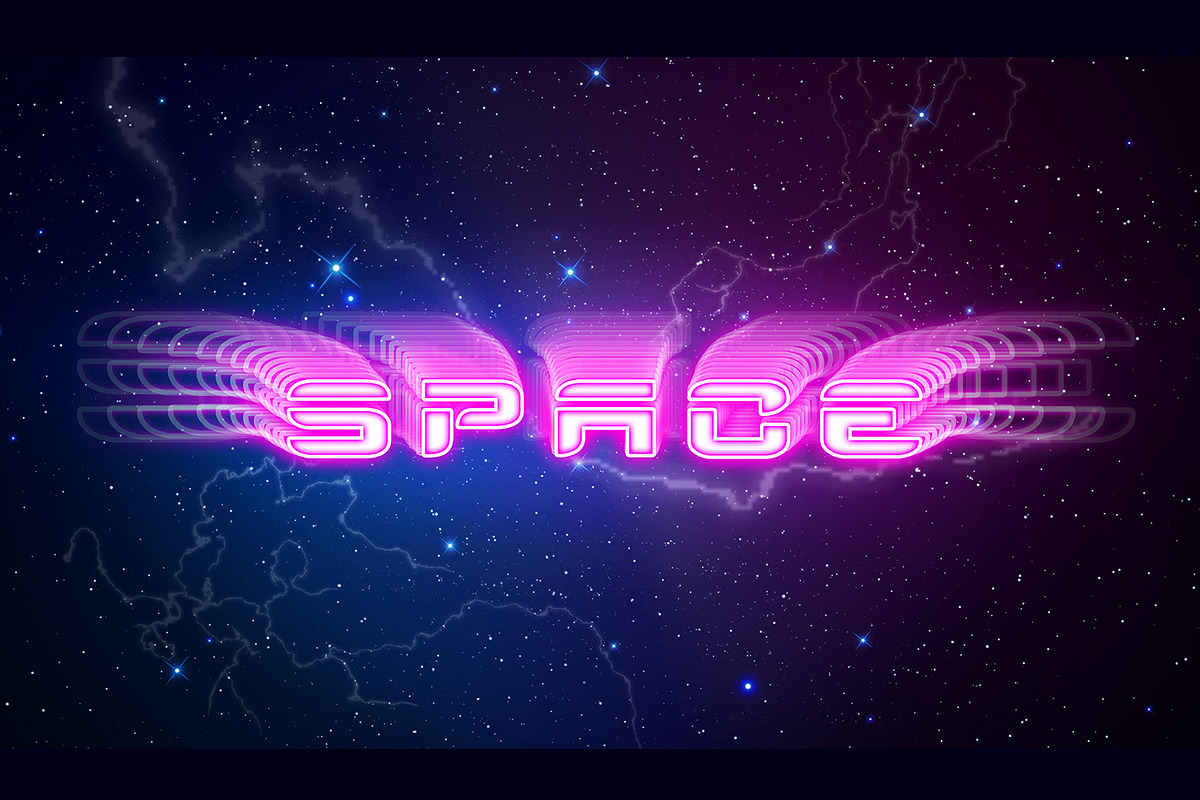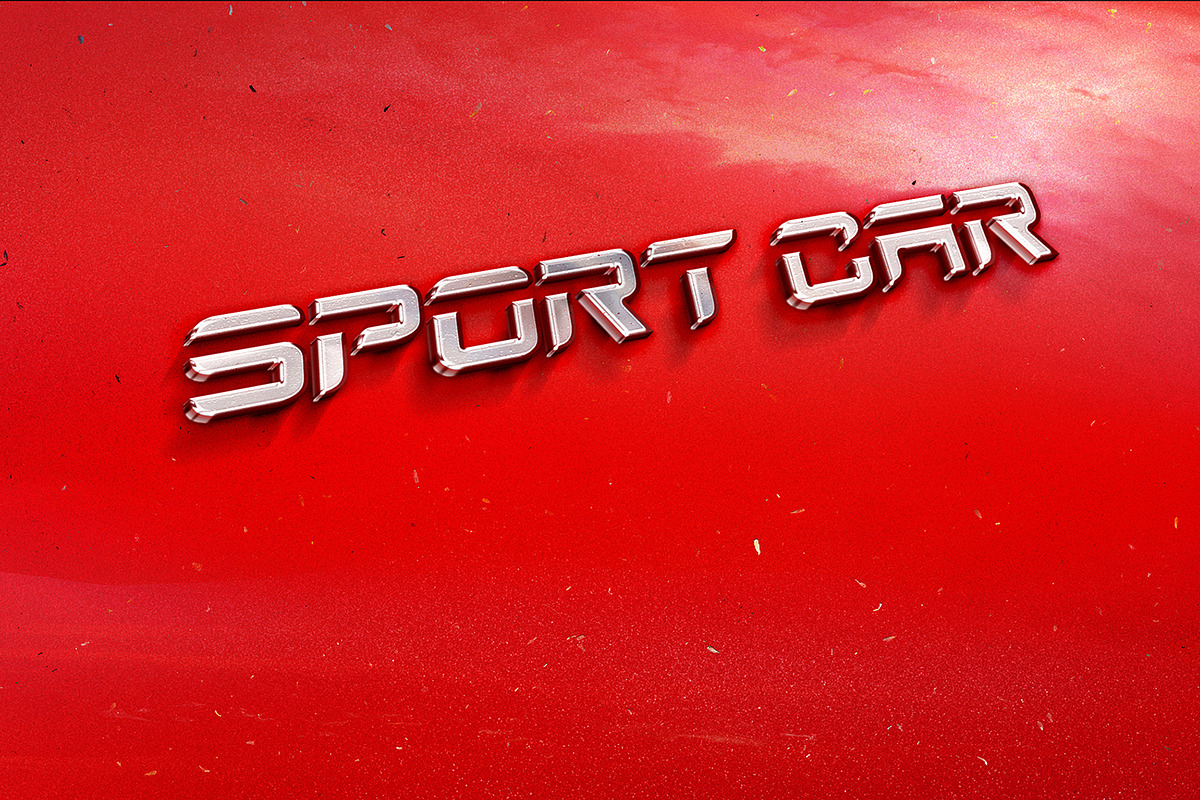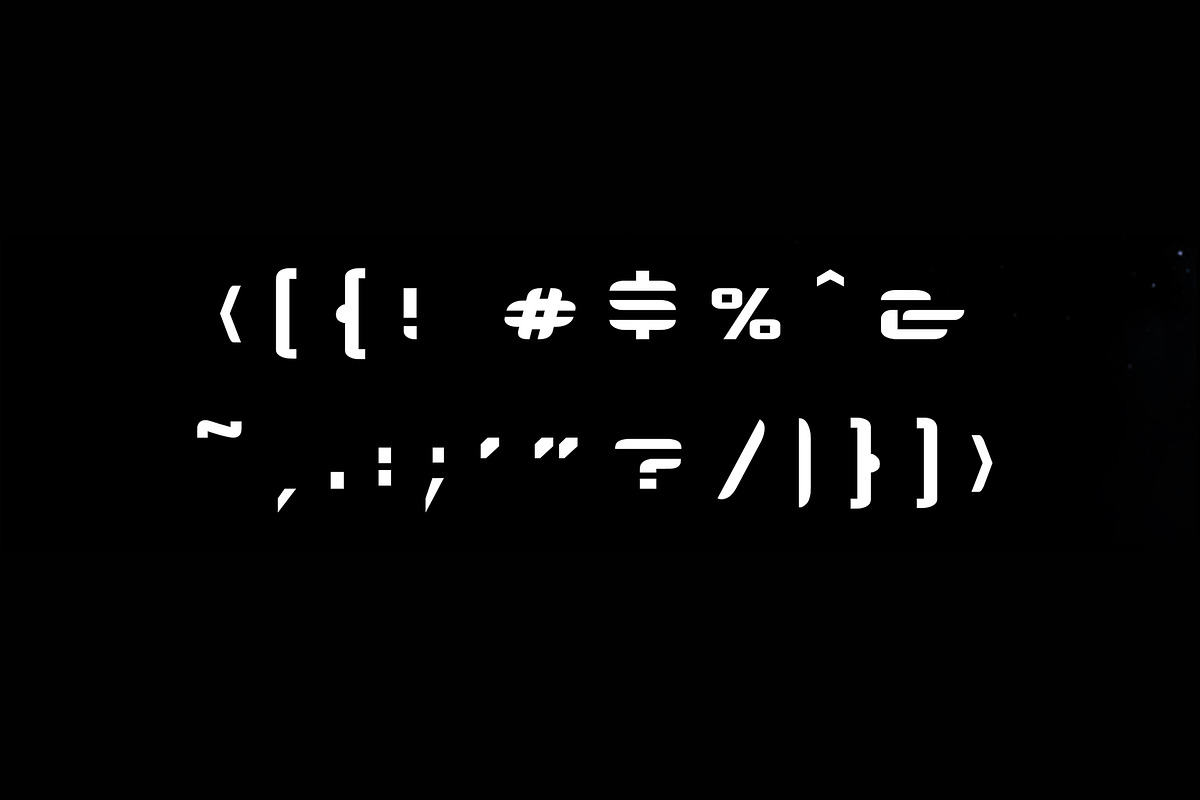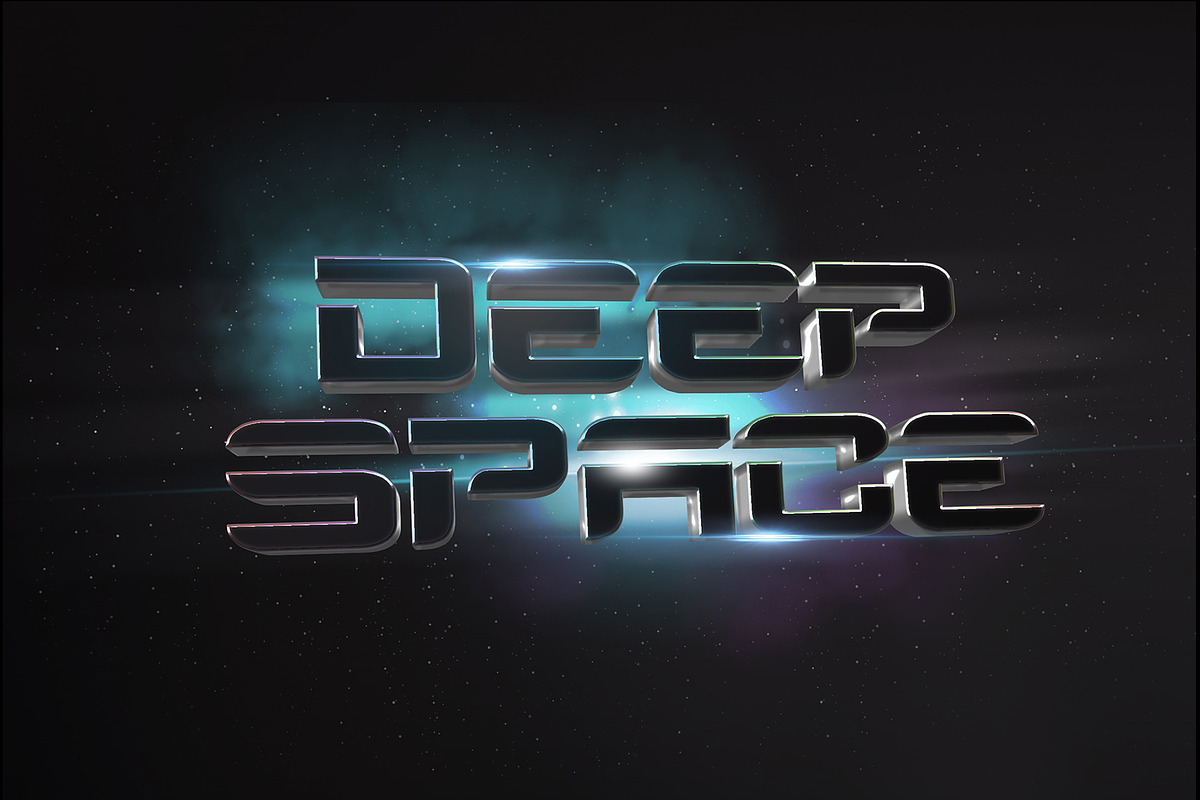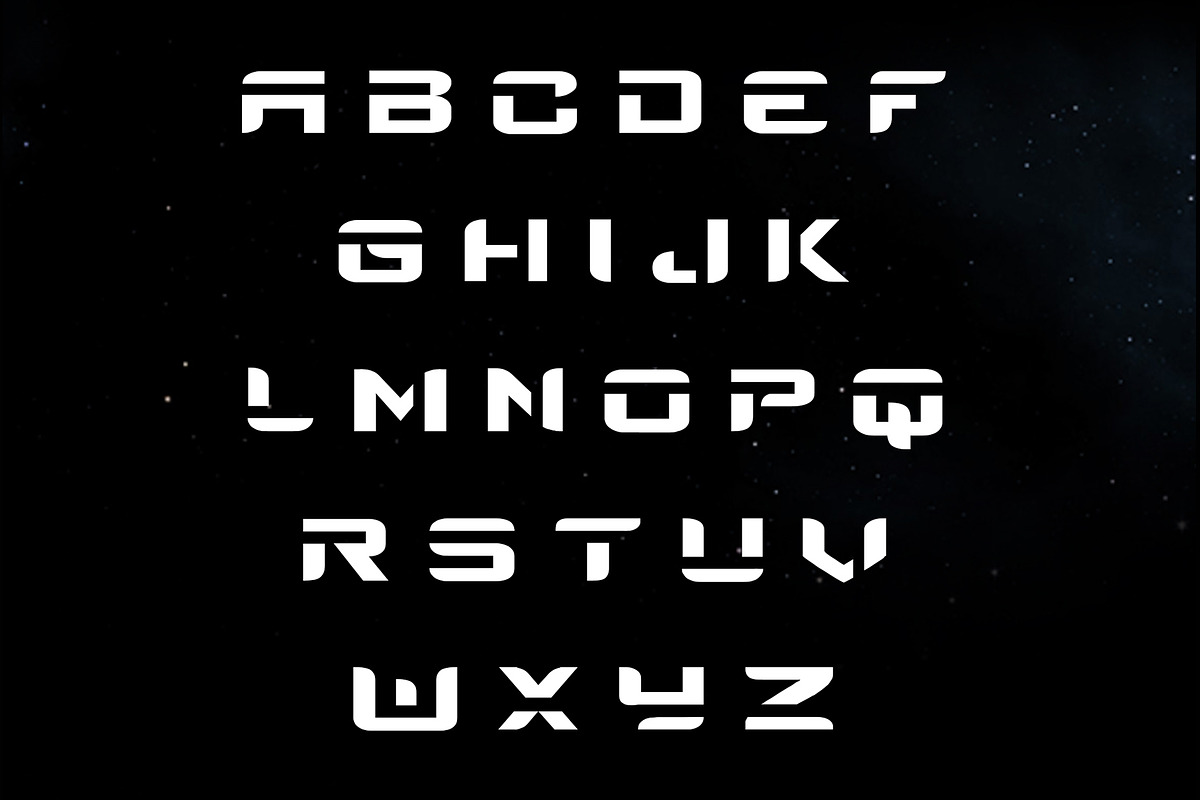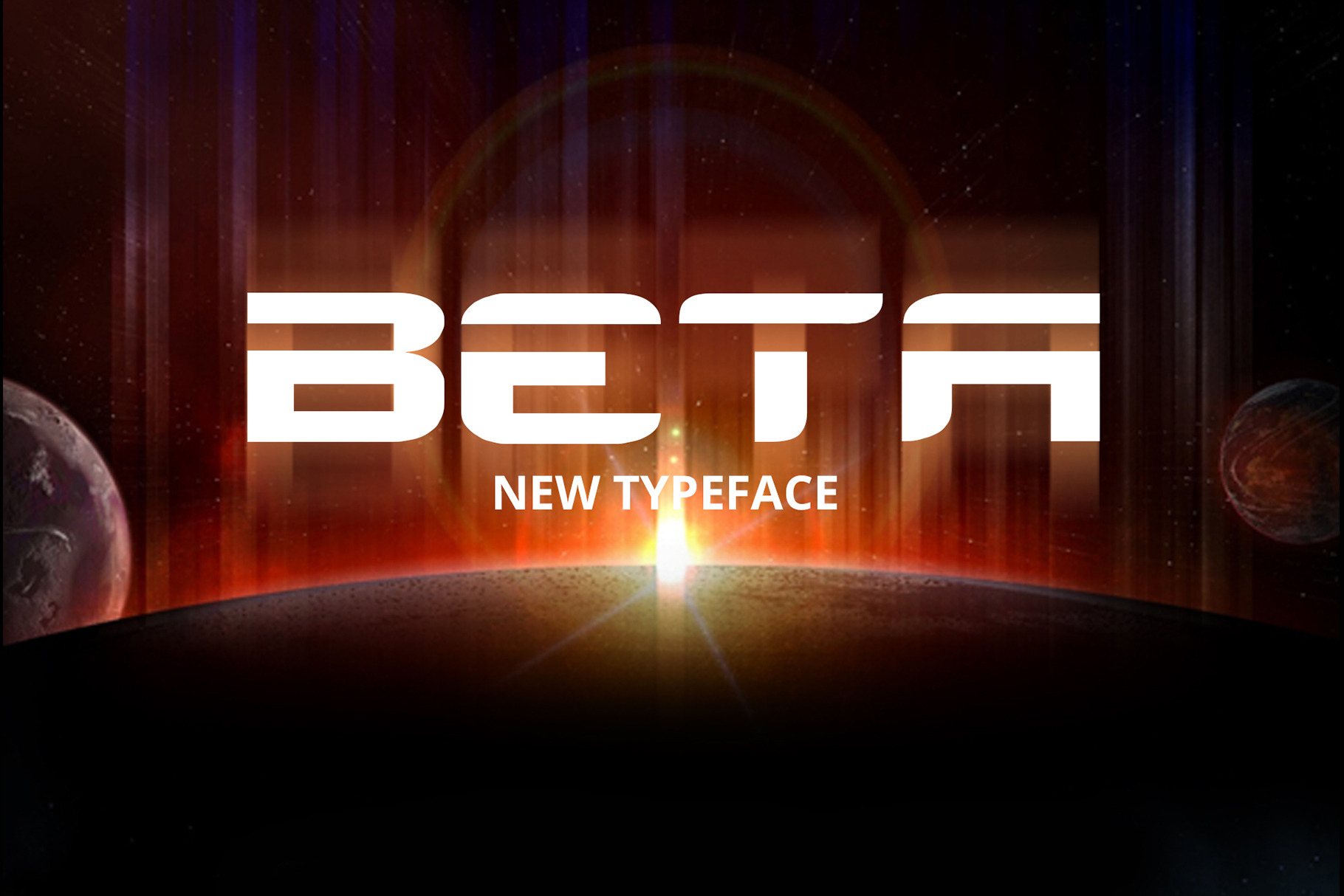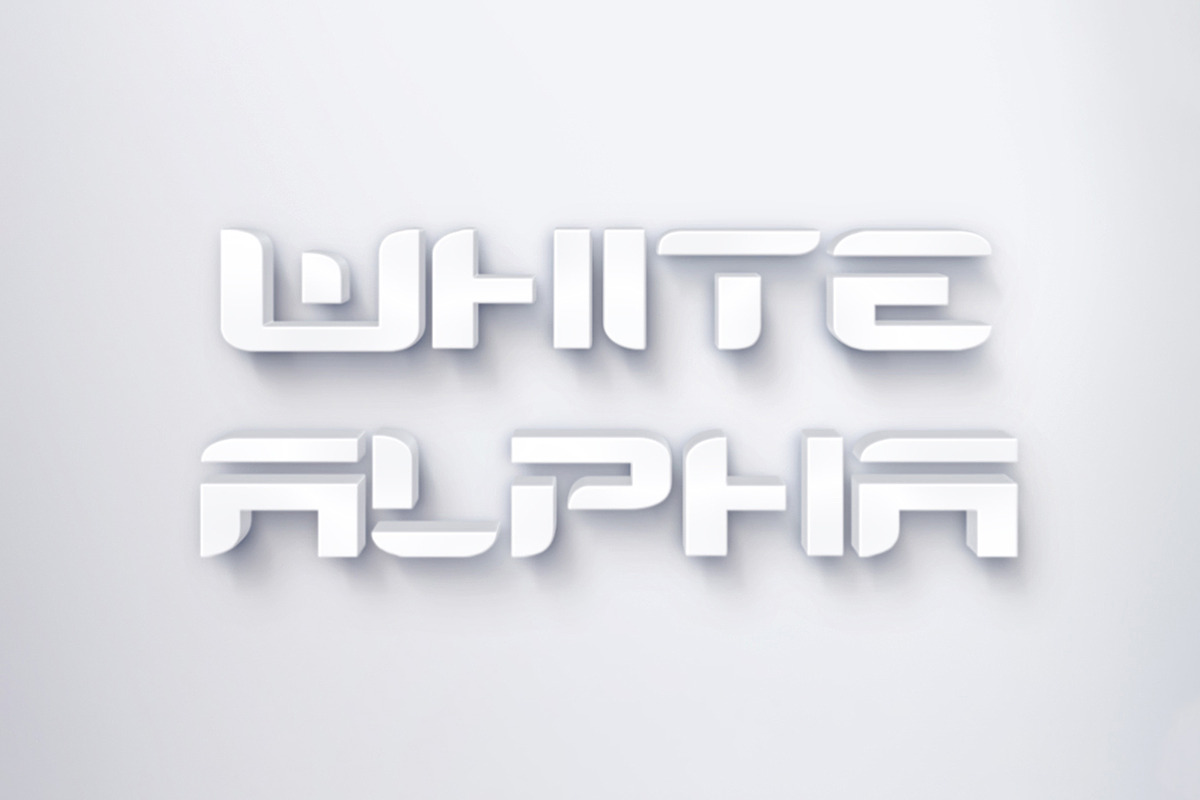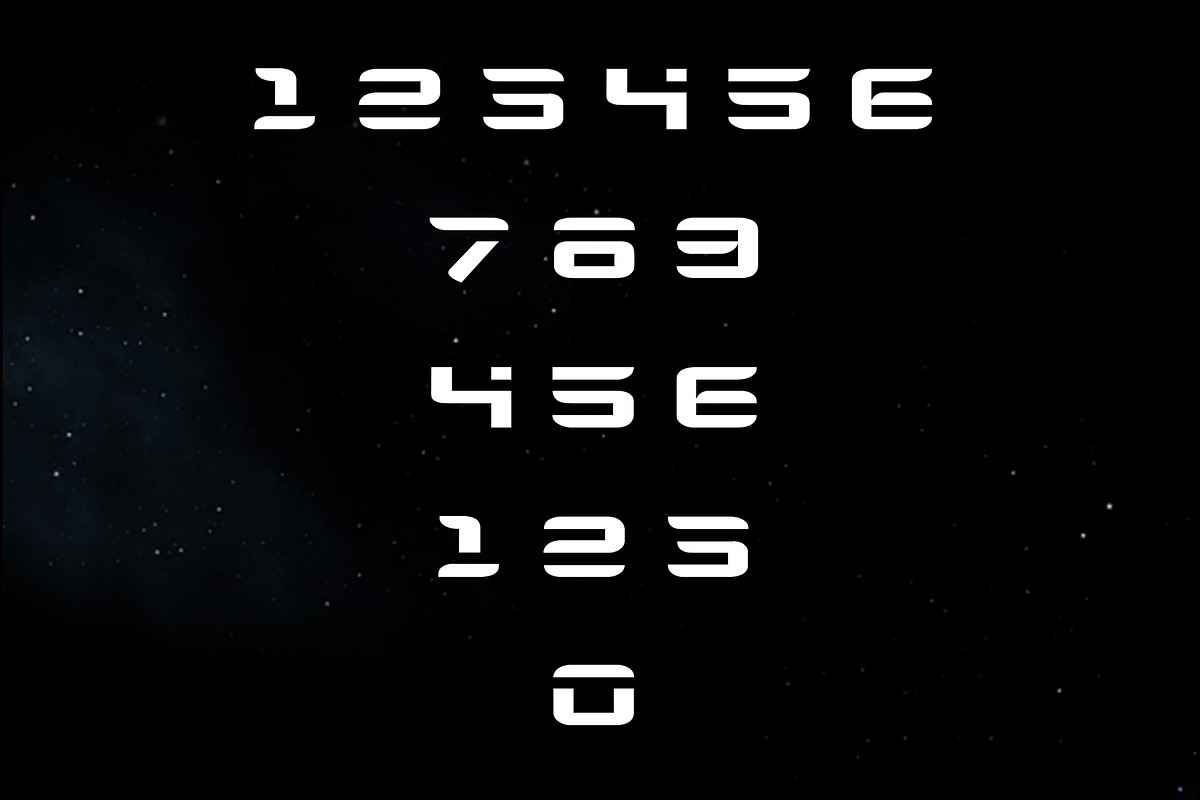
Beta is a futuristic sport font.
BETA font is a futuristic all caps typeface. A modern and crisp font, BETA is designed to work well at medium-to-large size, ideal for posters/flyers, headlines, movies, games, and logotypes.